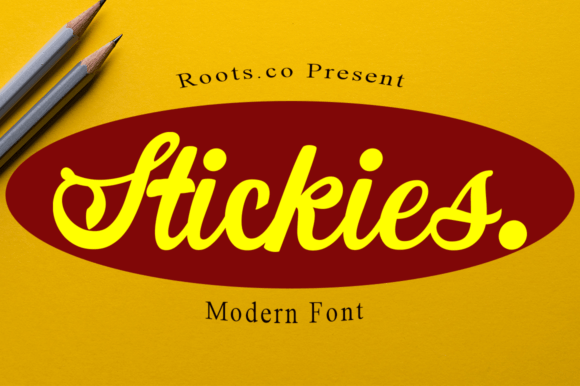
Unleash the Charm: Stickies Font - A Symphony of Elegance and Playfulness
Immerse yourself in the world of Stickies Font, a script font family that exudes charm and playfulness. Inspired by the allure of handwritten notes and the warmth of personal letters, Stickies Font is a true masterpiece crafted by ROOTS.CO, renowned for their impeccable attention to detail and unwavering commitment to quality.
With its graceful curves, organic lines, and a touch of whimsy, Stickies Font effortlessly adds a personal touch to any project, transforming ordinary designs into extraordinary expressions of creativity. Whether you're a seasoned designer seeking to elevate your work or a novice just starting your design journey, Stickies Font is the perfect companion for you.
Experience the Versatility: A Font for Every Occasion
Stickies Font is a versatile chameleon, seamlessly adapting to a multitude of design endeavors. Whether you're crafting heartfelt wedding invitations, creating eye-catching social media posts, designing logos that leave a lasting impression, or adding a personal touch to product packaging and labels, Stickies Font rises to the occasion.
Its charm shines through in photography, adding a layer of depth and emotion to your images. Create stunning watermarks that protect your work while enhancing its aesthetic appeal. Design stationery that exudes sophistication and elegance, leaving a lasting impression on recipients. The possibilities are endless, bounded only by your imagination.
A Flawless Synergy: Harmony in Design
Stickies Font possesses an uncanny ability to blend seamlessly with other design elements, creating a harmonious symphony of visual appeal. Its delicate strokes and organic flow complement illustrations, photographs, and other fonts, creating cohesive designs that captivate and enchant.
With Stickies Font, you'll discover a font that not only stands out but also elevates the entire design, transforming it into a cohesive masterpiece. Experience the joy of creating designs that resonate with audiences, leaving an indelible mark on their minds.